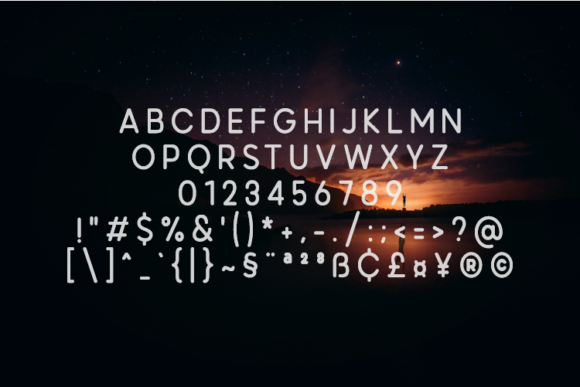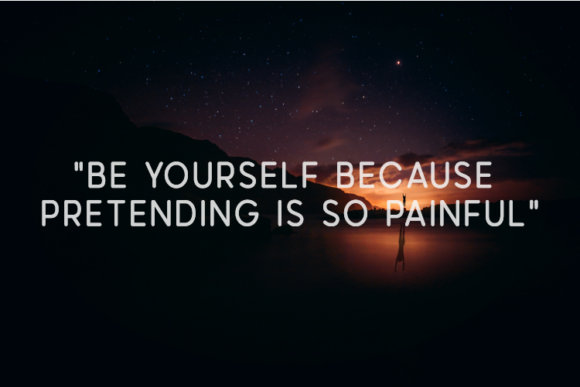
Aurena Font: Elevate Your Designs with a Minimal and Neat Sans Serif
Aurena is a stunning sans serif font that has taken the design world by storm. Its minimal and neat aesthetic makes it an incredibly versatile choice for a wide range of projects. Whether you’re a designer, crafter, or simply a creative enthusiast, Aurena is sure to become a go-to font in your collection.
The Characteristics of Aurena Font
Aurena’s design is centered around simplicity and elegance. Its clean lines, subtle curves, and balanced proportions create a harmonious visual experience. This font is perfect for projects that require a professional and modern look, such as:
- Digital marketing materials
- Print materials (business cards, brochures, posters)
Why Choose Aurena Font?
Aurena’s unique characteristics make it an excellent choice for designers and crafters. Here are some reasons why:
- Versatility: Aurena can be used in a wide range of projects, from digital to print, and from simple to complex designs.
- Legibility: The font’s clean design ensures excellent legibility, making it perfect for body text, headings, and titles.
- Uniqueness: Aurena’s subtle curves and balanced proportions set it apart from other sans serif fonts, giving your designs a distinctive touch.
- Ease of use: Aurena is easy to read and works well in various sizes, making it a great choice for designers and crafters of all levels.
Aurena Font in Design and Crafting
Aurena’s flexibility makes it an excellent choice for various design and crafting applications. Here are some ideas to get you started:
- Branding and logos: Use Aurena to create a professional and modern logo that represents your brand.
- Digital art: Combine Aurena with other design elements to create stunning digital art pieces.
- Paper crafting: Add a touch of elegance to your paper crafting projects, such as cards, invitations, and scrapbook pages.
- Web design: Use Aurena as a font for your website, blog, or online portfolio to create a clean and modern look.
Tips for Using Aurena Font
To get the most out of Aurena, here are some tips to keep in mind:
- Pair it with other fonts: Combine Aurena with other fonts to create visual interest and add depth to your designs.
- Experiment with colors: Try out different color schemes to find the perfect match for your Aurena font.
- Play with sizes: Use Aurena in various sizes to create visual hierarchy and emphasize important elements.
- Keep it simple: Don’t be afraid to keep your design simple and let Aurena’s clean design shine.
Aurena font is a versatile and elegant sans serif font that can elevate your designs and crafting projects. Its minimal and neat aesthetic makes it perfect for a wide range of applications, from branding and logos to digital art and paper crafting. With its excellent legibility, uniqueness, and ease of use, Aurena is sure to become a favorite font among designers and crafters. So why wait? Add Aurena to your creative toolbox and notice how it makes your projects stand out!